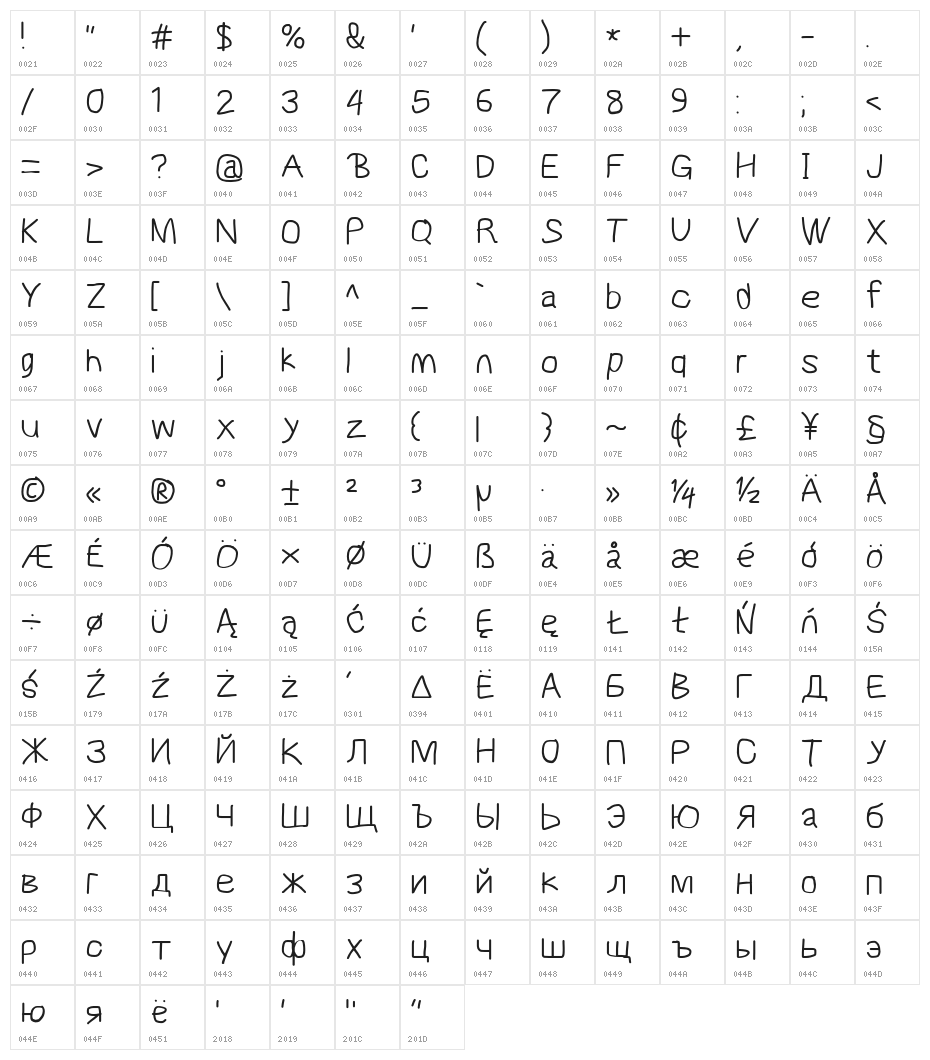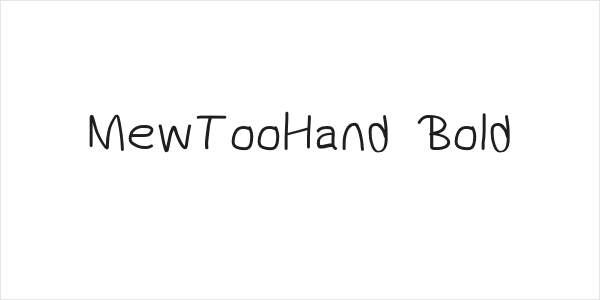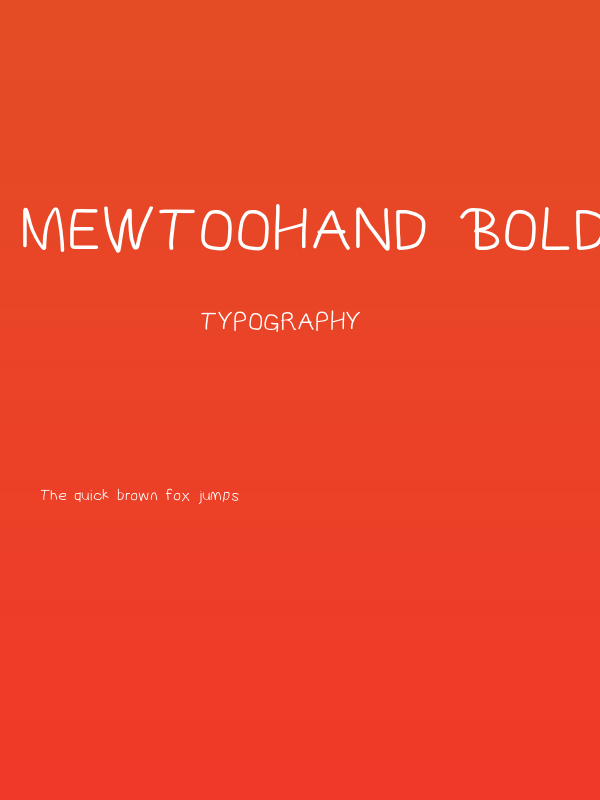
MewTooHand Bold Font
MewTooHand Bold Description
This font features a playful and casual handwritten style, characterized by its rounded and slightly irregular letterforms. The strokes are consistent in weight, giving it a bold appearance, yet maintaining a friendly and approachable feel. The characters are well-spaced, providing a clean and readable look. Its unique charm lies in the subtle variations in each letter, which add a personal touch reminiscent of hand-drawn text. The numerals and special characters follow the same design principles, ensuring a cohesive appearance across all glyphs.
| Overall Style | Casual |
| Use Case | Headlines, Logos, Informal Text |
| Proposed Projects | Ideal for children's books, casual invitations, greeting cards, and playful branding projects. |